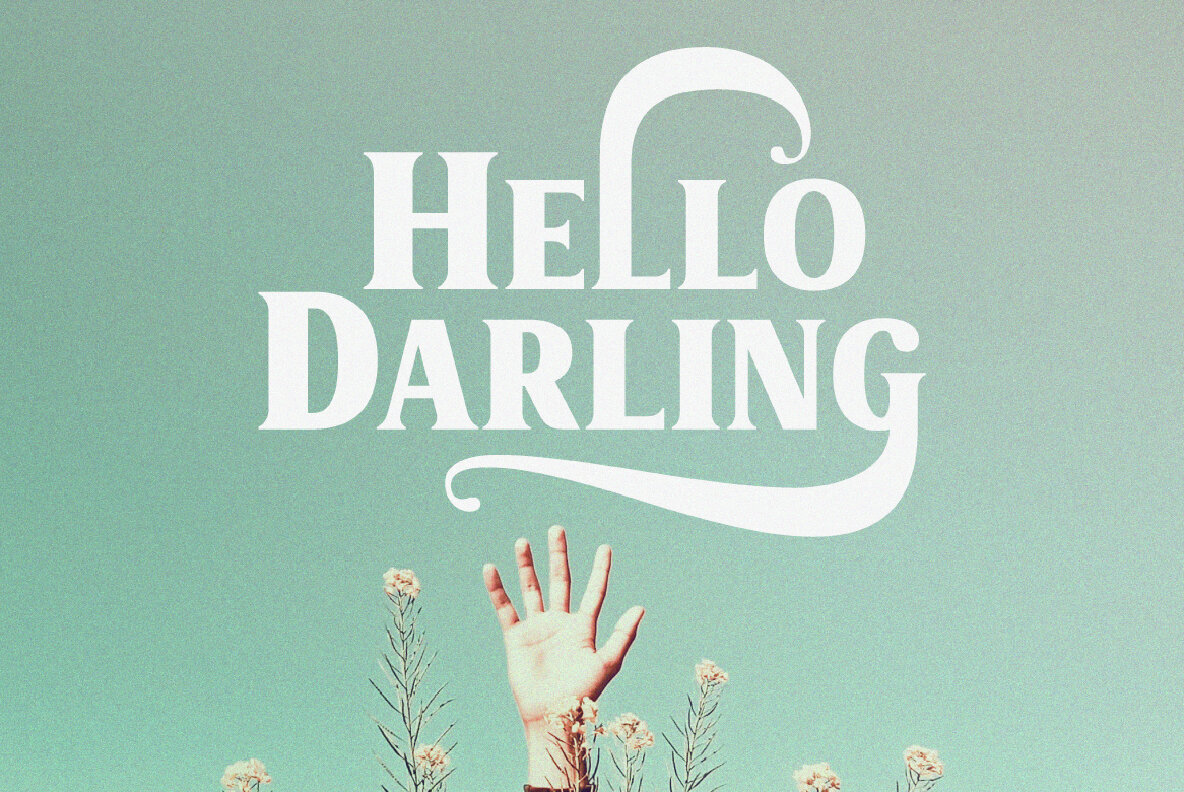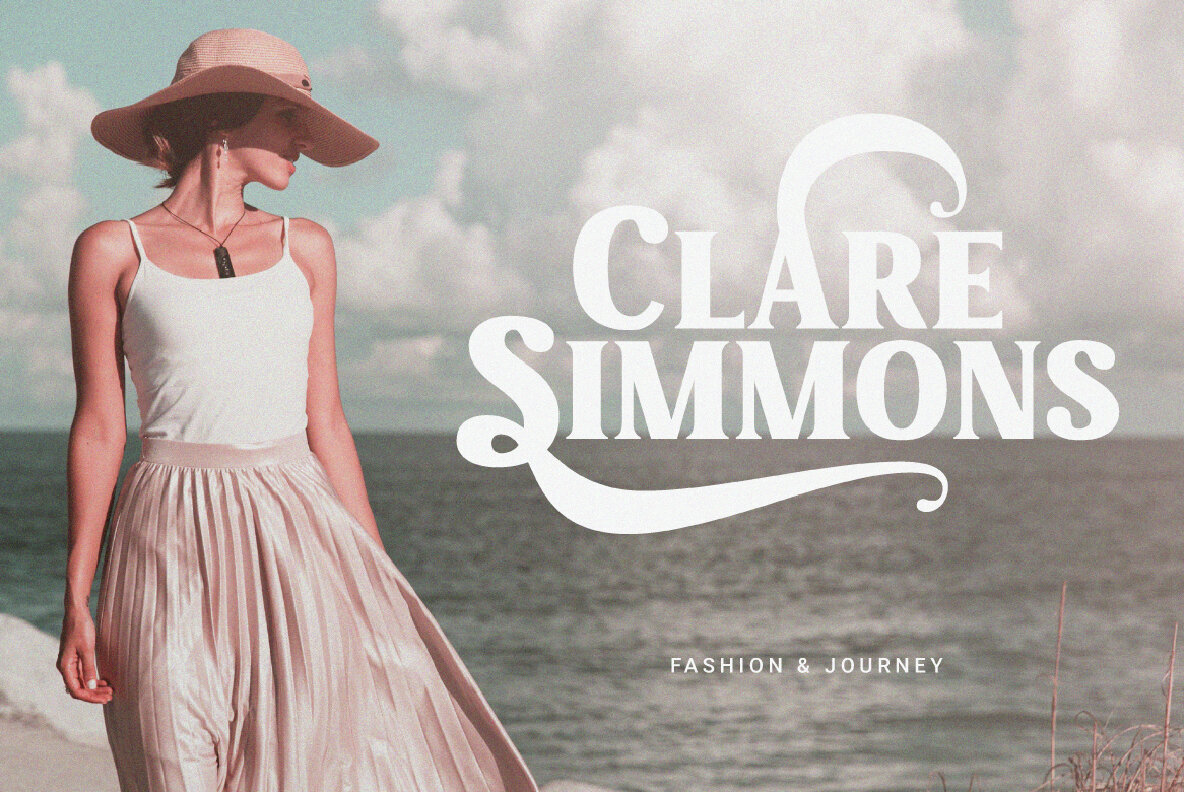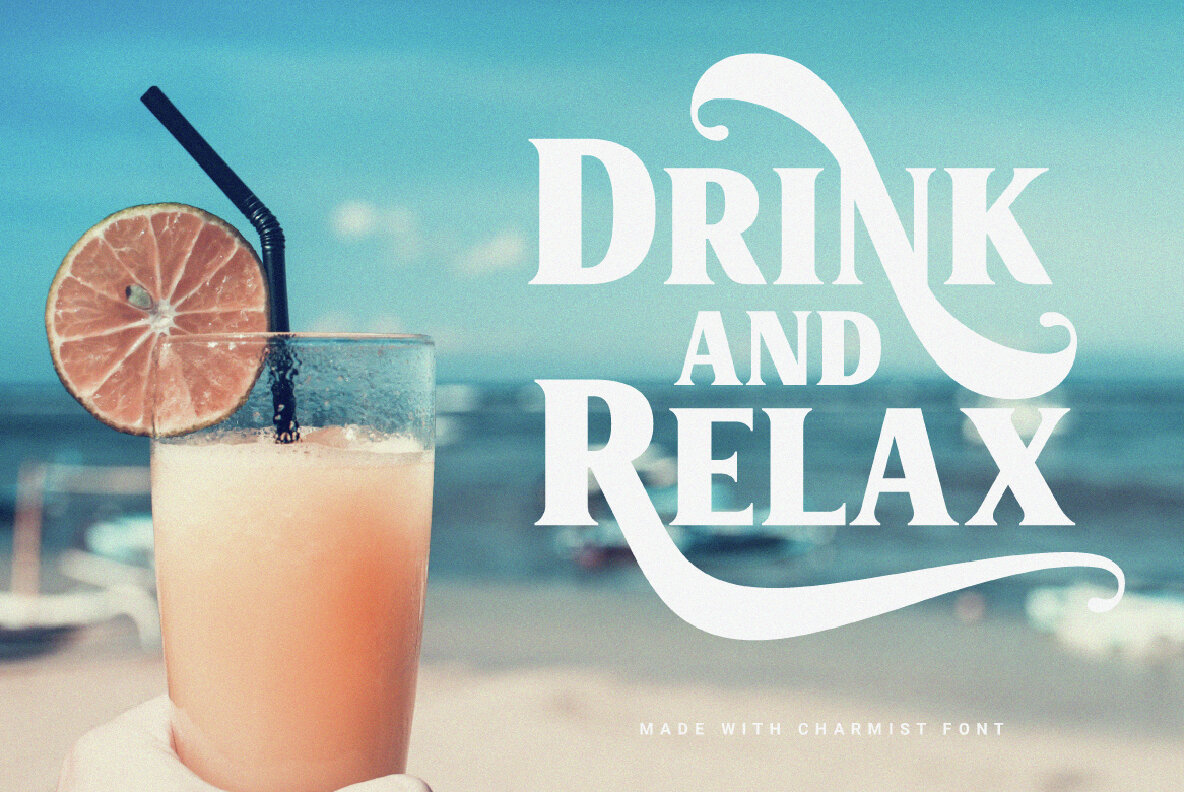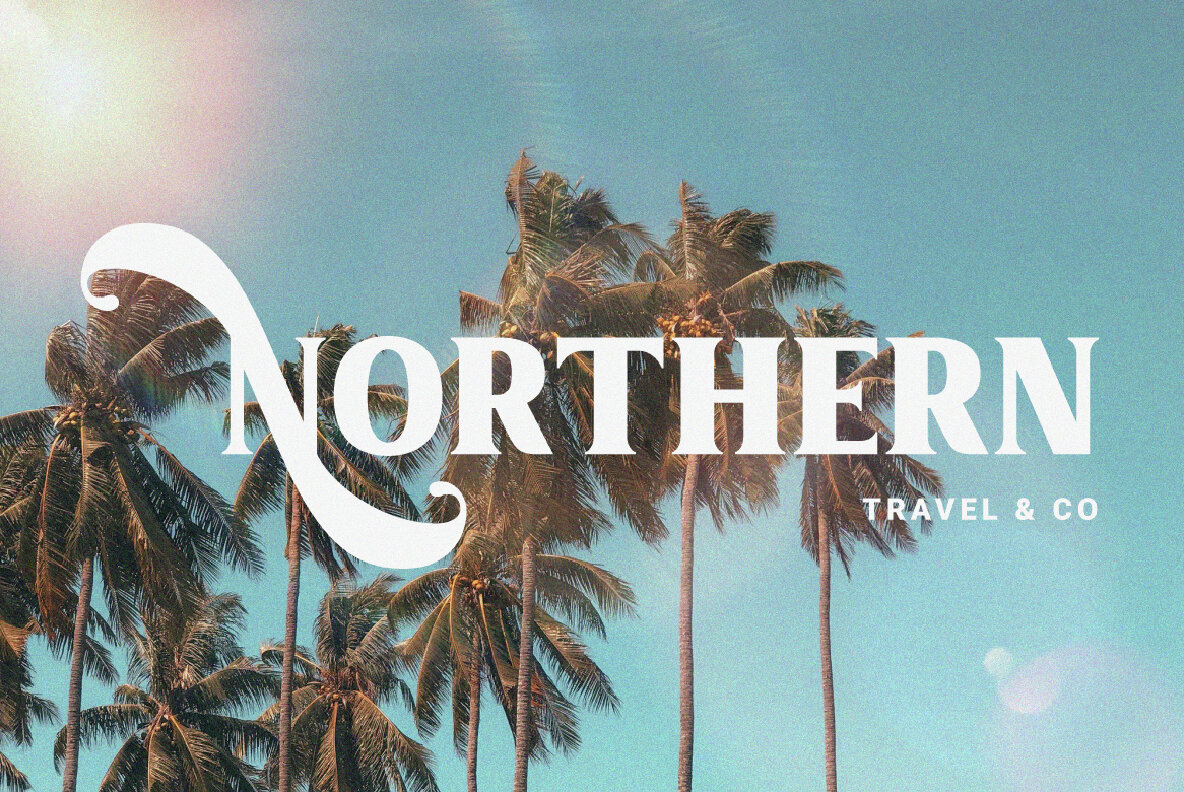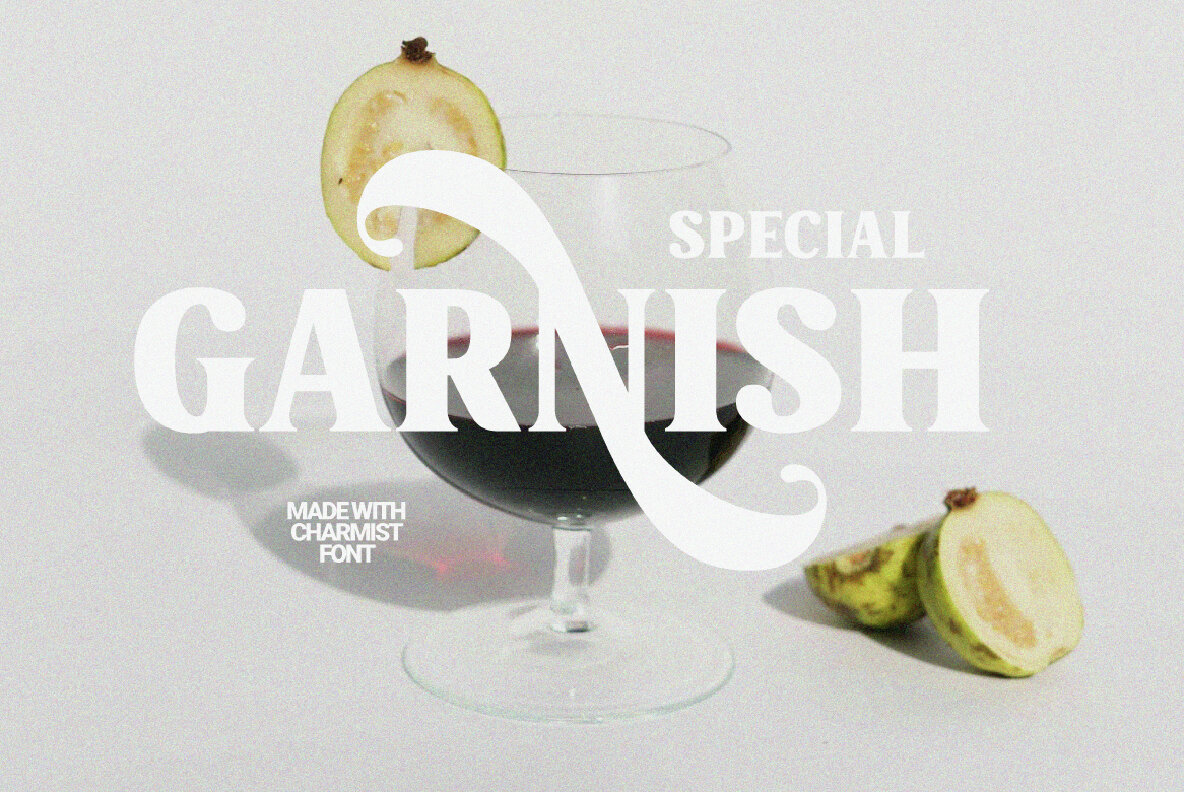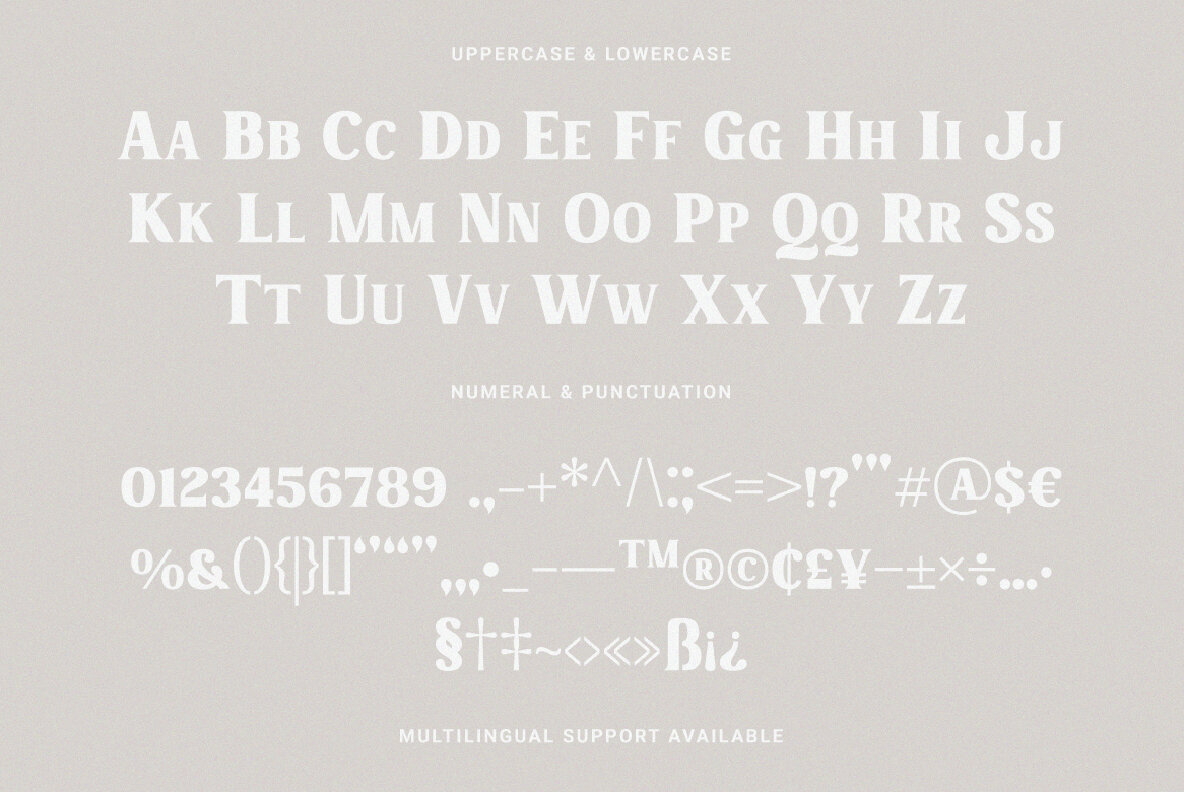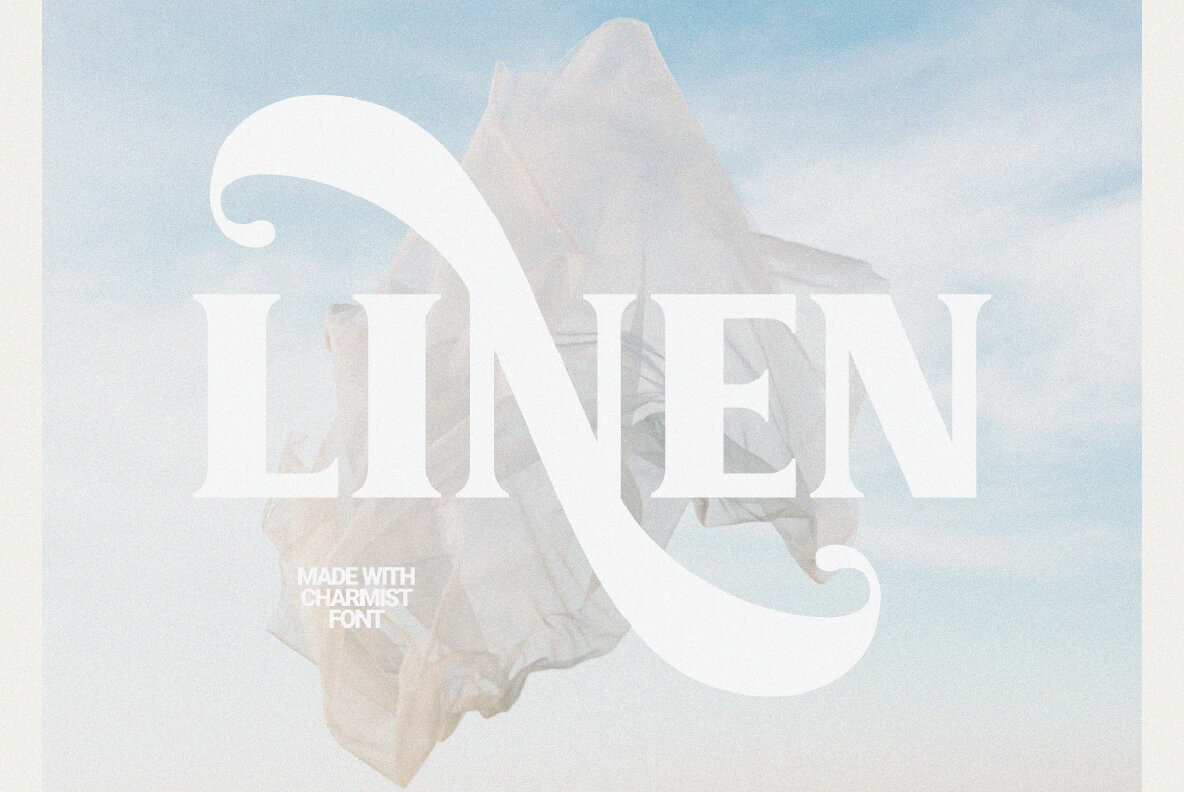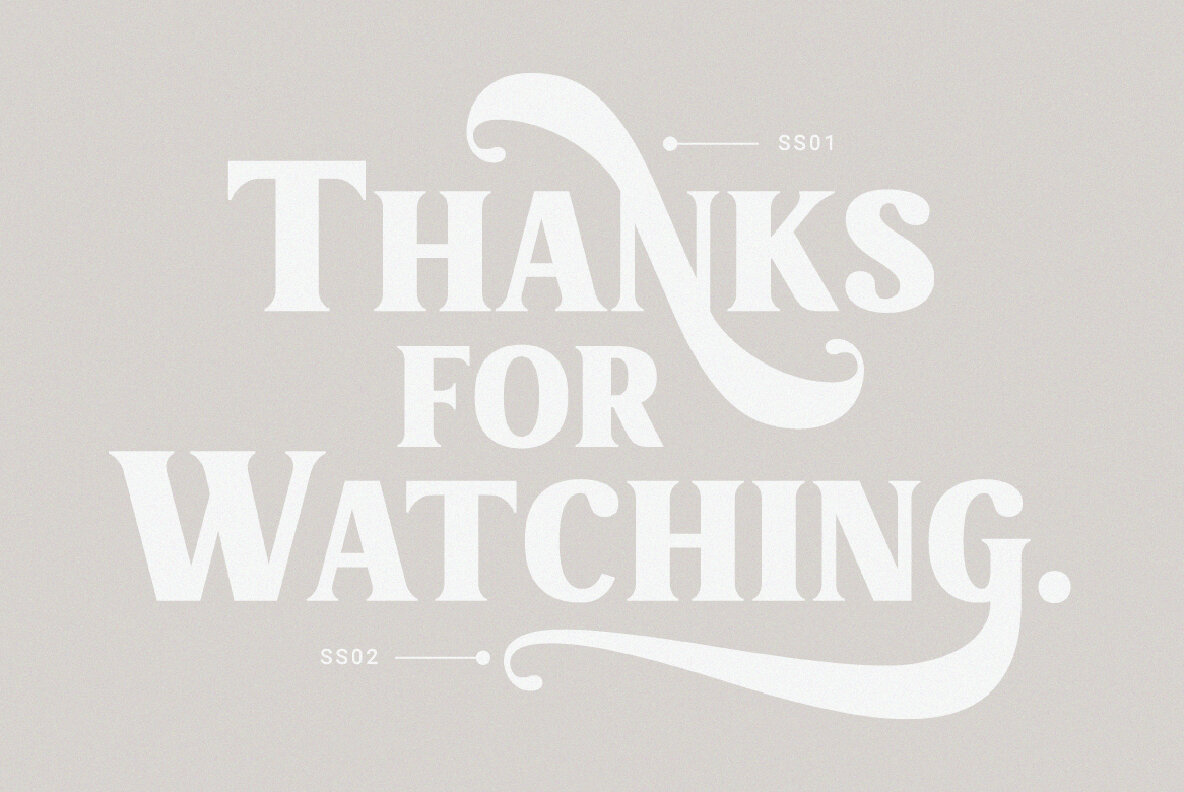
Charmist Font
Charmist Regular
This font is a bold serif typeface perfect for making a strong impact in headlines, titles, and display uses. Its traditional yet commanding presence makes it ideal for posters, logos, branding, and advertising. Designed with high contrast and clear legibility, it fits well within editorial design and other projects requiring an authoritative and classic look.